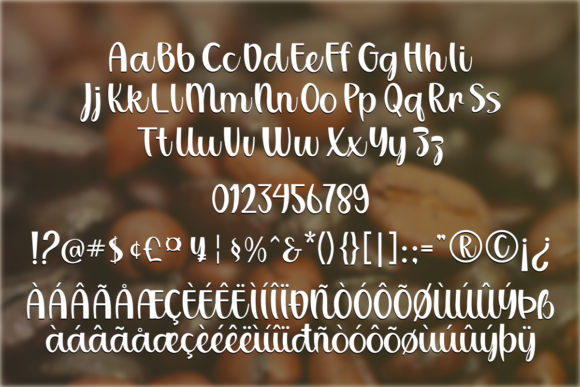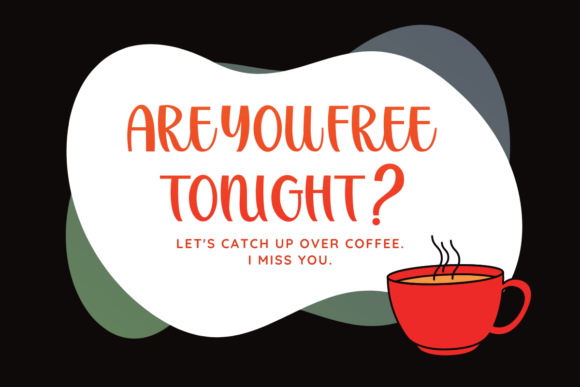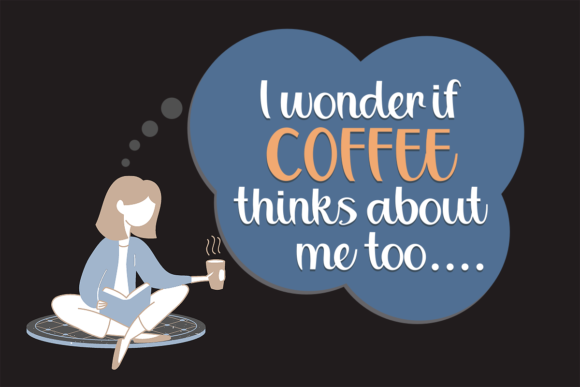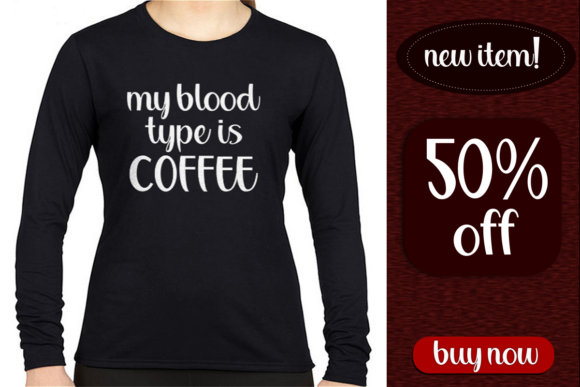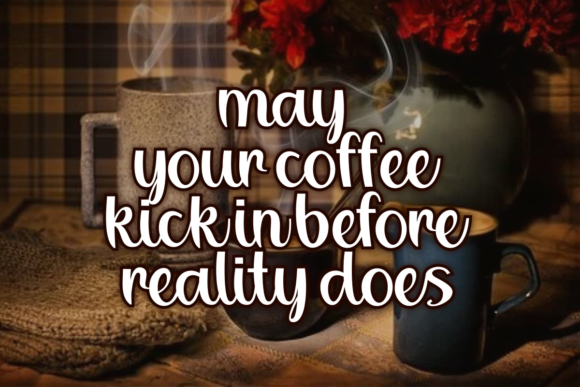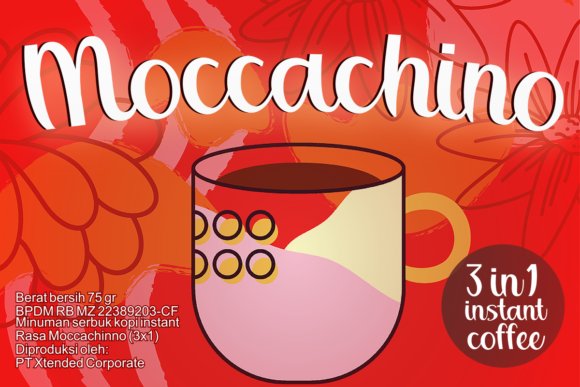
Bitterbeans Font
About Bitterbeans Font
Bitterbeans sounds like an exquisite and flowing handwritten font, masterfully designed to become a true favorite. Its elegant touch and timeless style make it a versatile choice for a wide variety of projects. Here are some creative ideas on how to use Bitterbeans and experience the magic it brings to your designs:
1. Wedding Invitations: Design stunning and romantic wedding invitations with Bitterbeans, showcasing its flowing and elegant lettering for a touch of sophistication.
2. Thank You Cards: Create heartfelt thank you cards using Bitterbeans’ graceful and distinct characters, expressing gratitude with a touch of elegance.
3. Quotes and Inspirational Prints: Utilize Bitterbeans to craft beautiful and meaningful quote prints, adding a touch of timeless charm to motivational messages.
4. Greeting Cards: Design charming and sophisticated greeting cards for various occasions, such as birthdays, holidays, and special celebrations.
5. Logo Design: Apply Bitterbeans’ flowing and elegant lettering to create unique and memorable logos for businesses, blogs, or personal branding.
6. Branding Materials: Use Bitterbeans as a primary font in brand materials, including packaging, business cards, and marketing collateral, to exude elegance and distinction.
7. Social Media Graphics: Craft eye-catching social media graphics with Bitterbeans, adding a touch of sophistication and charm to your brand’s online presence.
8. Art Prints: Create printable art pieces with Bitterbeans’ flowing and graceful lettering, suitable for framing and home decoration.
9. Book Covers: Design captivating book covers with Bitterbeans’ elegant and timeless style, setting the tone for the content inside.
10. Menu Cards: Apply Bitterbeans to design refined and sophisticated menu cards for restaurants or special events.
11. Blog Headers: Use Bitterbeans in blog headers to add a touch of elegance and create a memorable first impression.
12. Personal Stationery: Design personalized stationery, including letterheads and notecards, using Bitterbeans’ flowing and distinctive characters.
13. Certificate Design: Apply Bitterbeans to design certificates and diplomas, making them special and elegant keepsakes.
14. Packaging Design: Use Bitterbeans to create beautiful and refined packaging for luxury products, enhancing their appeal.
15. Event Invitations: Design elegant and sophisticated event invitations, such as galas, fundraisers, or exclusive gatherings, using Bitterbeans’ graceful script.
16. Product Labels: Apply Bitterbeans to design refined and eye-catching product labels, adding a touch of elegance to the packaging.
17. Website Typography: Use Bitterbeans as the main typography on your website to create an upscale and timeless aesthetic.
18. Calendars: Design stylish and sophisticated calendars with Bitterbeans’ flowing and elegant lettering.
19. Journals and Planners: Apply Bitterbeans to create elegant and sophisticated covers for journals and planners.
20. Handmade Crafts: Use Bitterbeans in branding and packaging for handmade crafts, giving them a touch of elegance and allure.
In conclusion, Bitterbeans is a flowing and elegant handwritten font that adds a touch of sophistication and timeless charm to your favorite projects. Its versatility and distinctive style make it suitable for a wide range of designs, from wedding invitations to branding and social media graphics. With Bitterbeans, your designs will come alive with elegance and grace, leaving a lasting impression on your audience. Embrace the magic of Bitterbeans and elevate your projects to new levels of beauty and refinement.